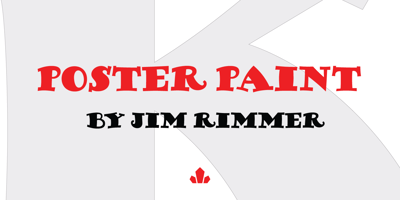
Poster Paint
Poster Paint font
Poster Paint Font Family was designed by Jim Rimmer and published by Canada Type. Poster Paint contains 1 styles and family package options. Poster Paint is a fun shocard alphabet which came about from Jim Rimmer’s admiration of Goudy Stout, a design he liked in spite of the fact that Goudy himself claimed to detest it. Extremely eye-catching and humourous to a fault, Poster Paint is an ideal fit for fun environments like theme parks, concession stands, cofee and juice bars, and in print design for children books and fun food packaging. Poster Paint was updated and remastered for the latest technologies in 2012. It comes with a glyphset of over 375 characters, and supports the majority of Latin-based languges. 20% of this font’s revenues will be donated to a GDC scholarship fund, supporting higher typography education in Canada.